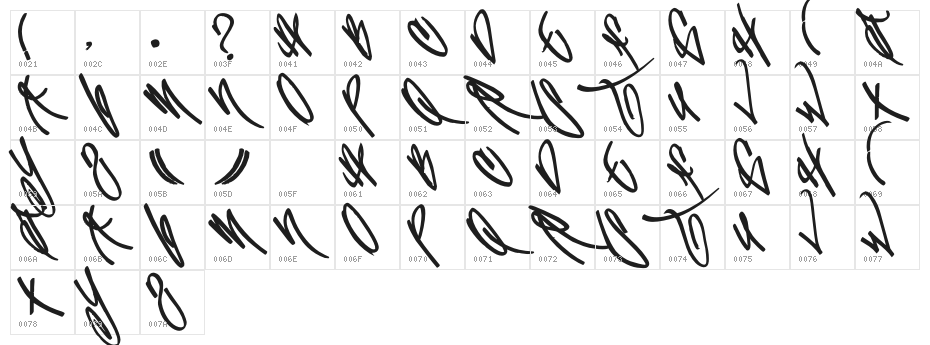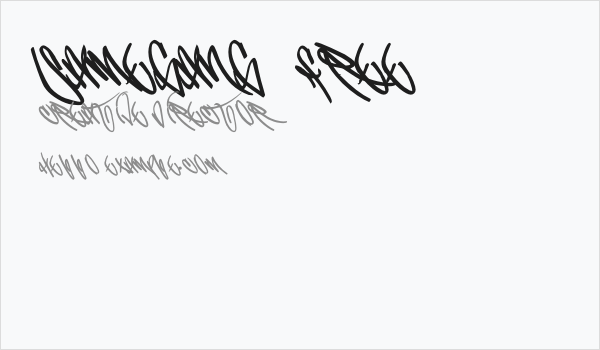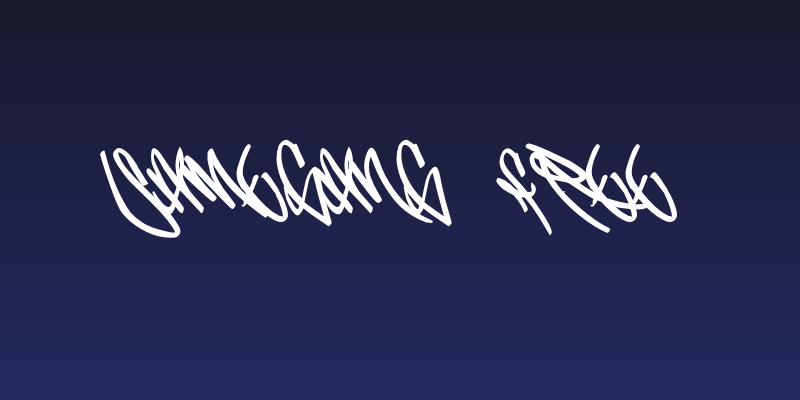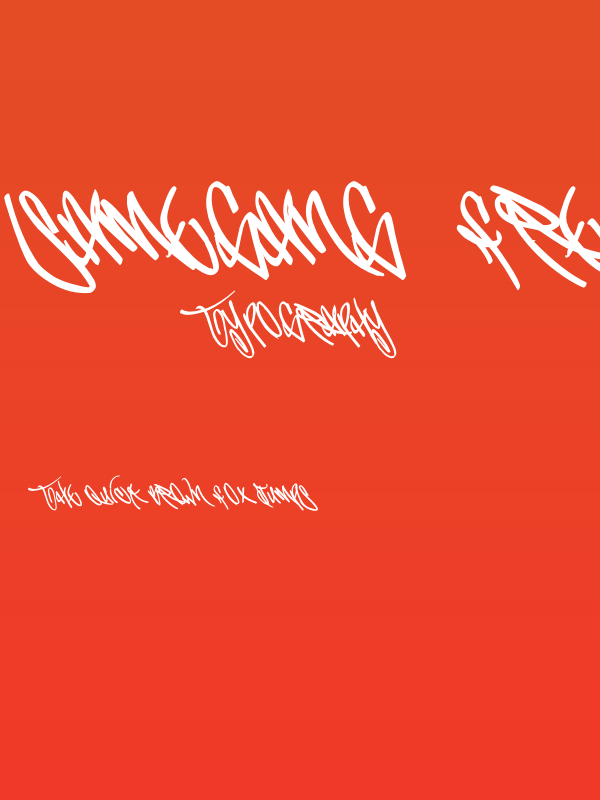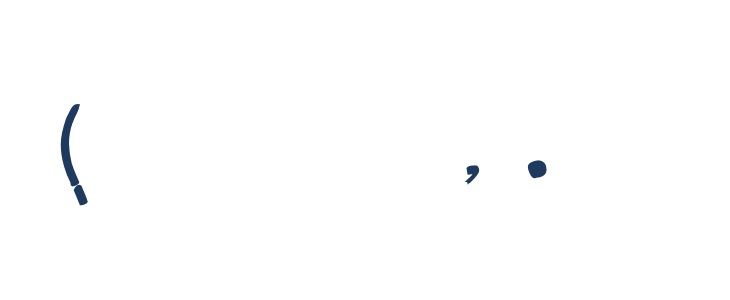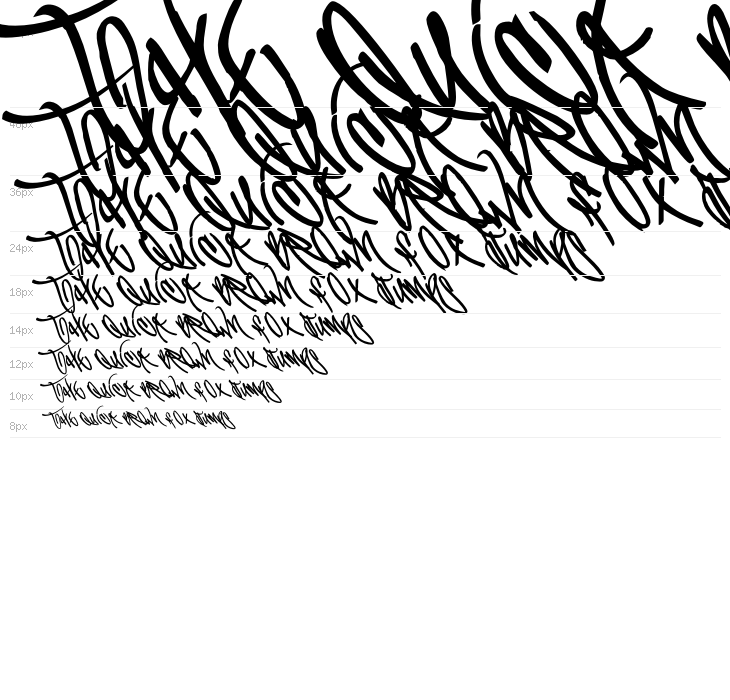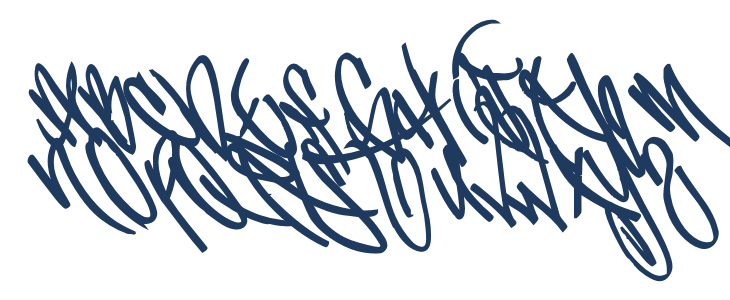
SameGang_Free Font
SameGang_Free Description
This font features a highly stylized, graffiti-inspired design with bold, sweeping strokes and a dynamic, energetic feel. The characters are interconnected with fluid, cursive-like lines, creating a sense of movement and spontaneity. The overall appearance is chaotic yet artistic, with each letter blending into the next, making it ideal for creative and urban-themed projects. The font's unique style makes it stand out, but it may not be suitable for readability in long texts due to its intricate design.
| Overall Style | Urban, Artistic, Graffiti |
| Proposed Projects | Ideal for street art designs, urban-themed posters, album covers, and creative branding. |